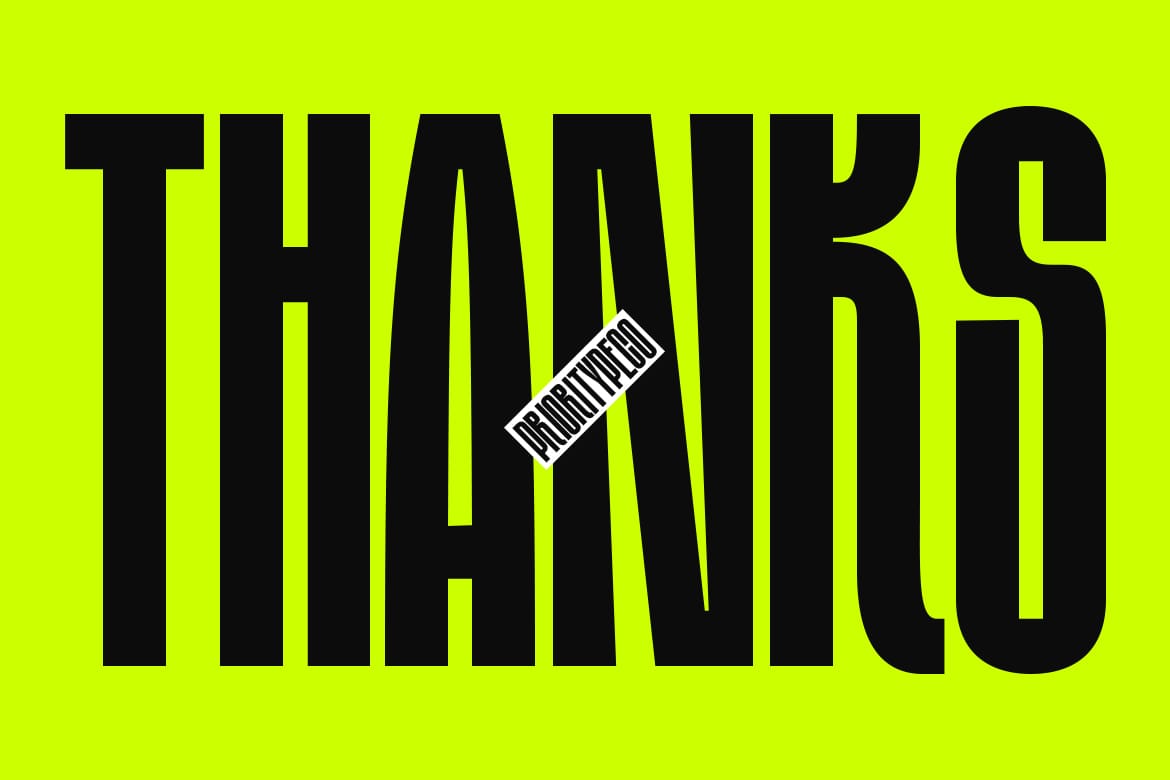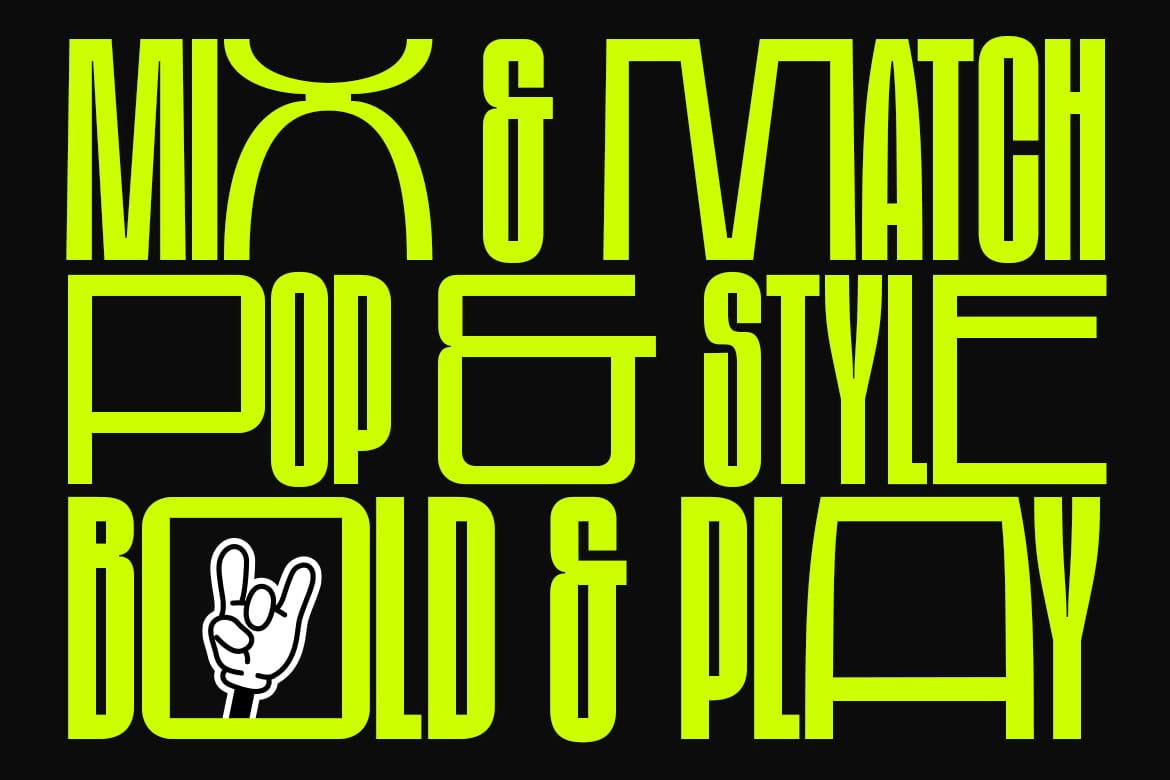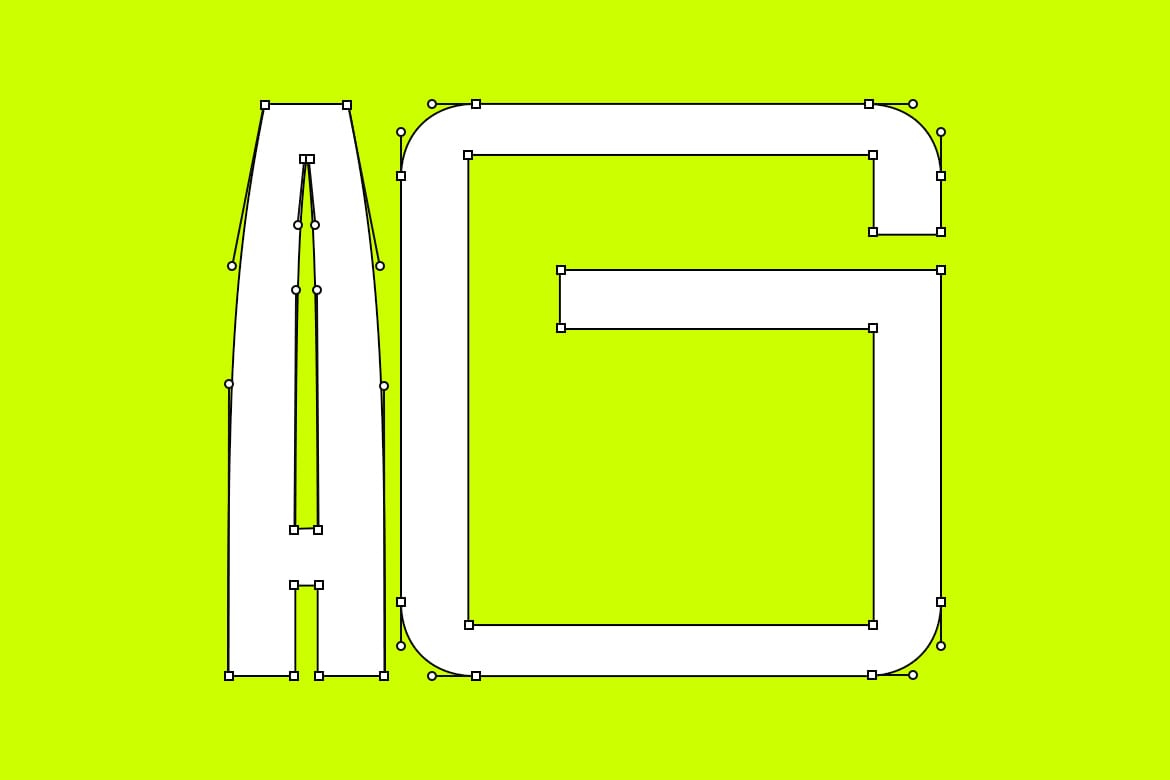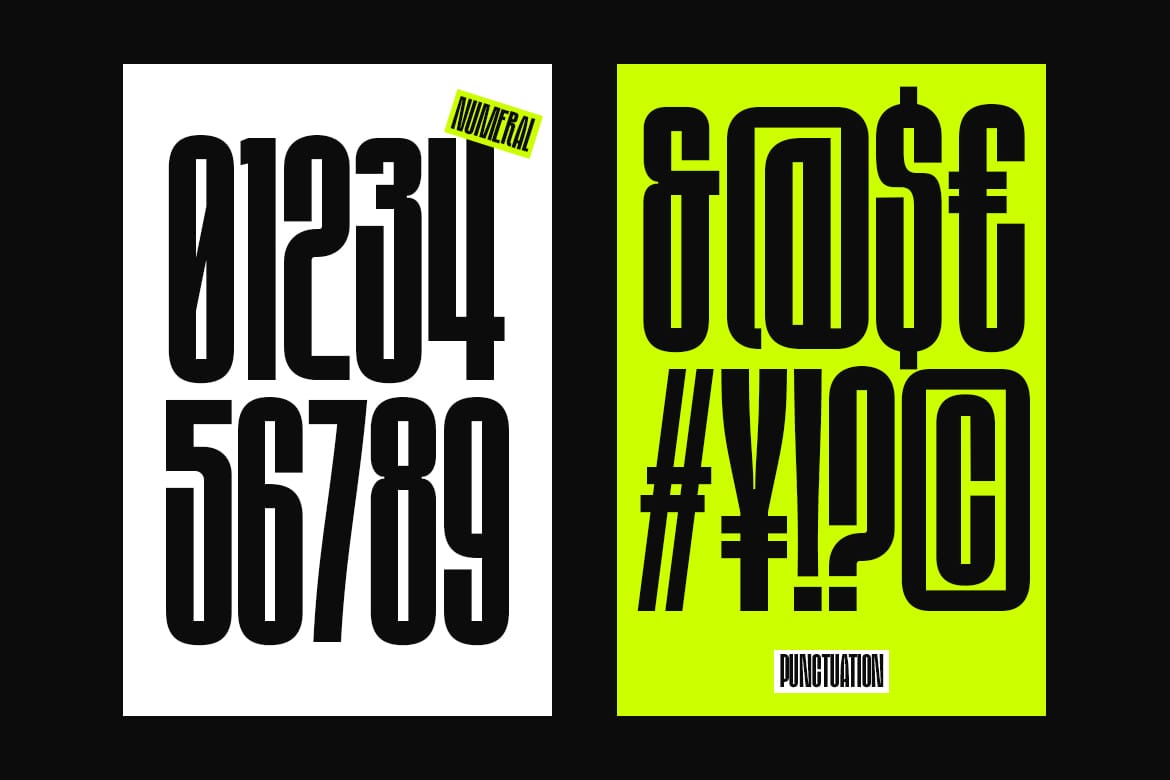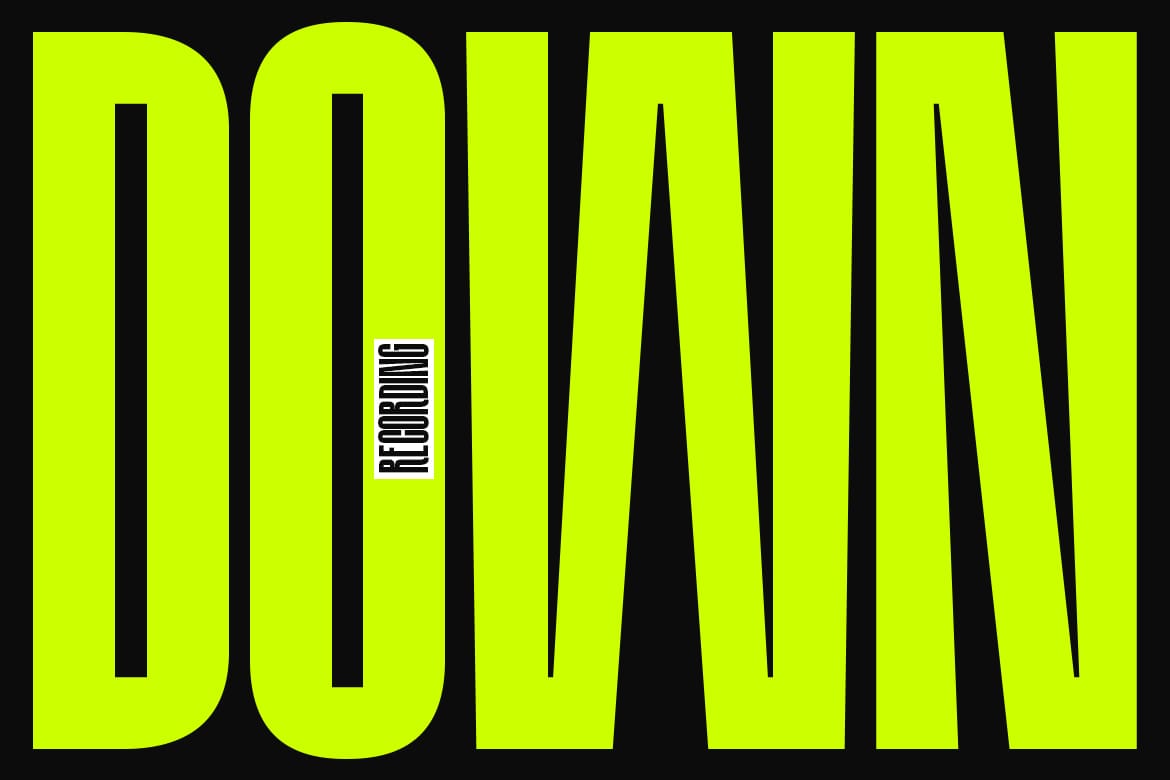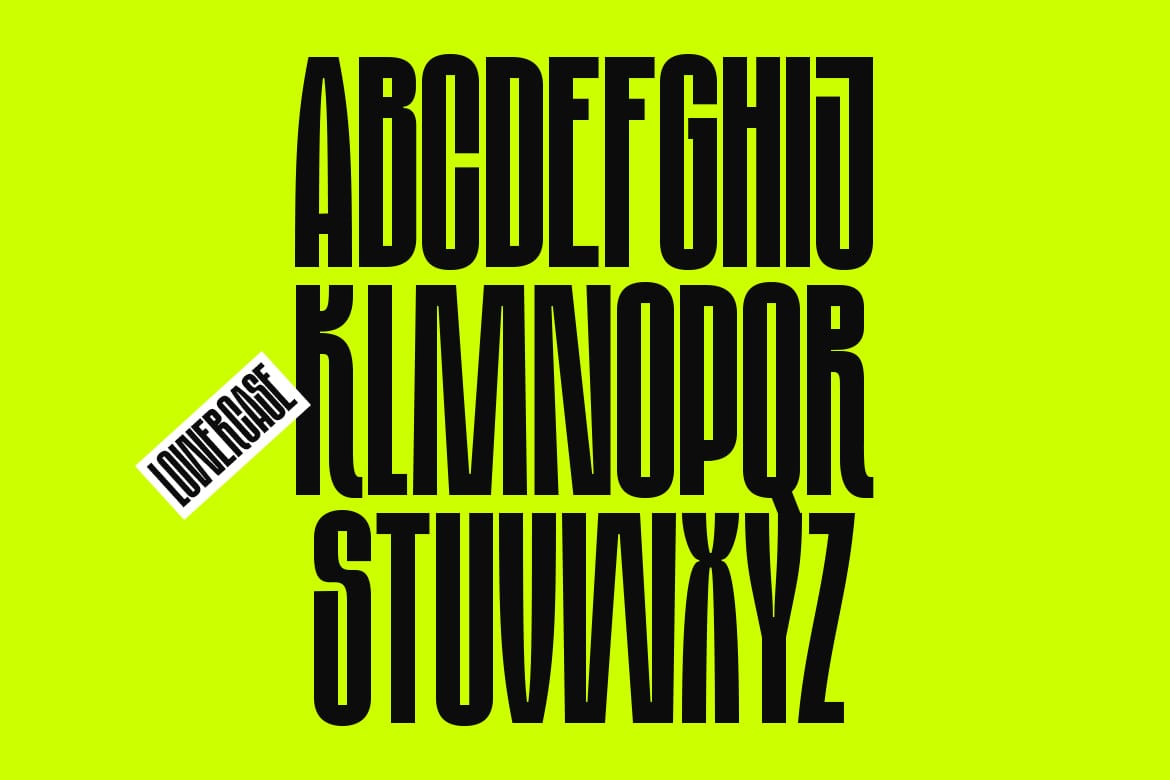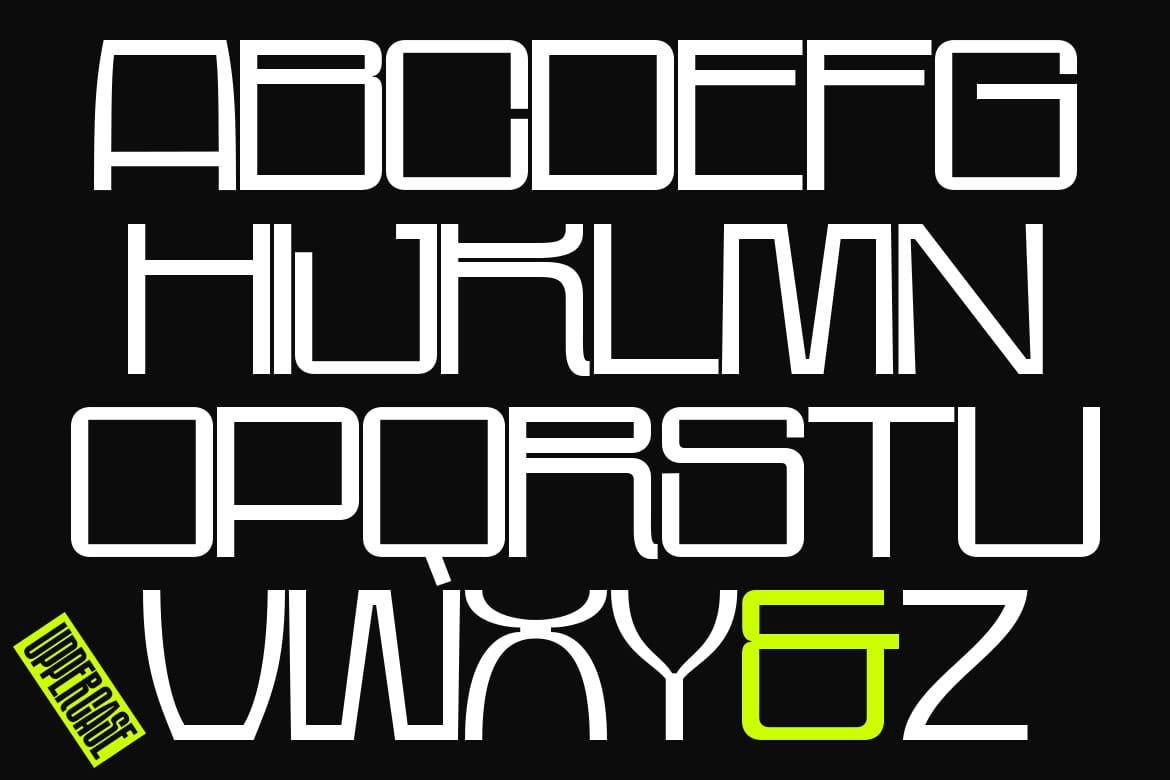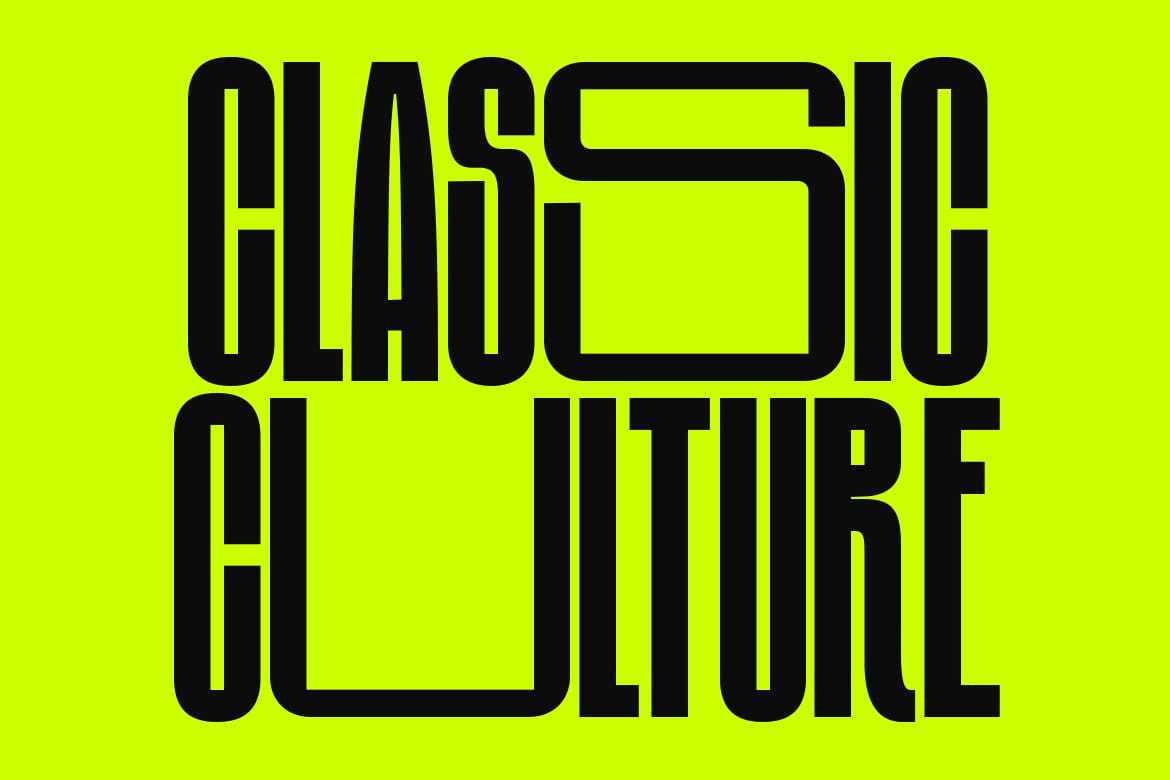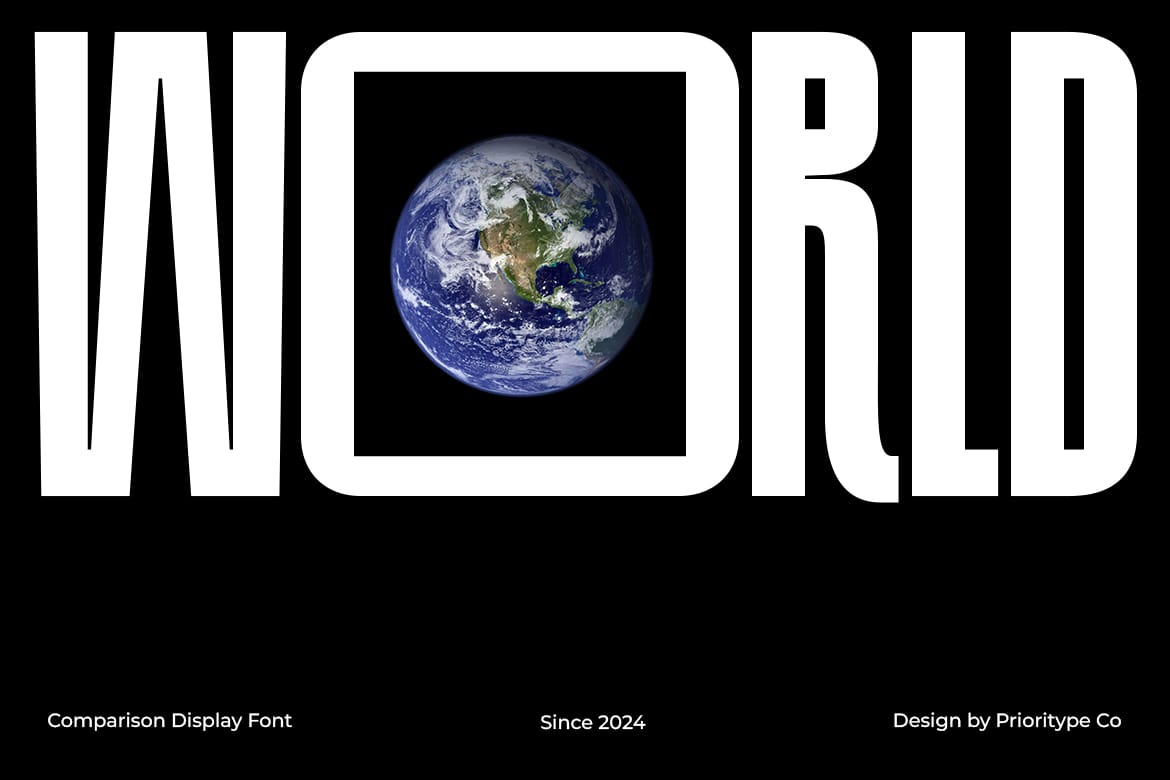
Comparison Display Font
Introducing Comparison Display Font—a dynamic mix and match typeface combining condensed and expanded sans-serif styles. With uppercase letters in an expansive, bold format and lowercase letters in a sleek, condensed design, this font brings versatility and flair to any project. Whether you're crafting eye-catching posters, impactful branding, striking headlines, or memorable logos, Comparison Display offers the perfect balance of contrast and cohesion. Elevate your design game with a font that's both playful and powerful.
Features: Uppercase, Lowercase, Numeral, Punctuation & Multilingual.
- Mix of condensed and expanded styles
- Bold uppercase, sleek lowercase
- Playful and powerful, multilingual